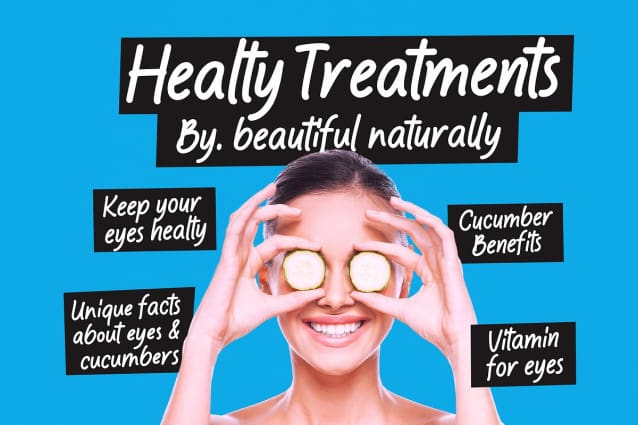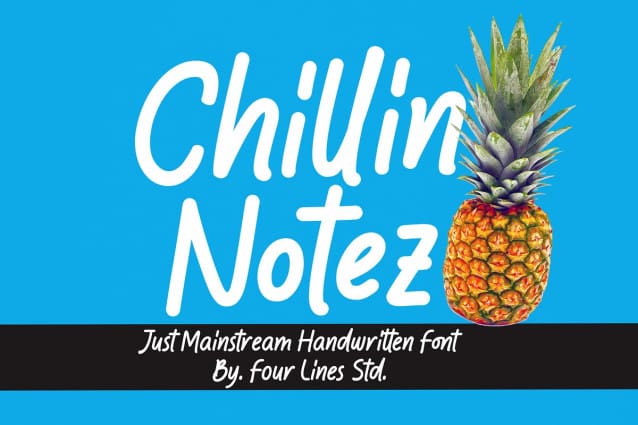
Chillin Notez Font
Chillin Notez adds an air of refinement to any project. Whether you’re crafting captivating advertisements, designing eye-catching poster, or creating stunning social media graphics, this font is your ultimate companion for conveying a message that resonates.